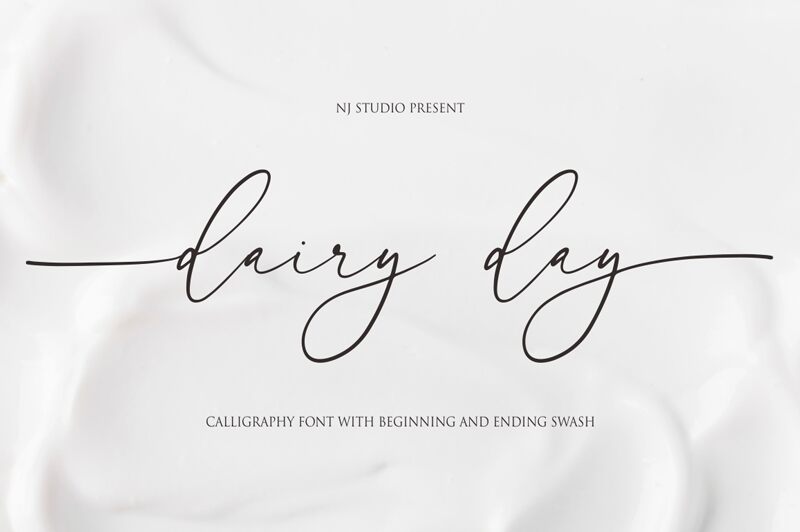
Dairy day
Dairy Day, a captivating handwritten font crafted by NJ Studio, exudes a delightful, whimsical charm. With its light, flowing strokes and organic, expressive letters, this font evokes a sense of playfulness and warmth, making it an enchanting choice for a variety of design projects.
Dairy Day's distinctive personality shines through in its playful flourishes and natural, hand-lettered aesthetic, making it an excellent selection for branding, packaging, and editorial design. Its versatility allows it to seamlessly transition from charming product labels to engaging social media content, infusing a touch of personality and character wherever it is applied.